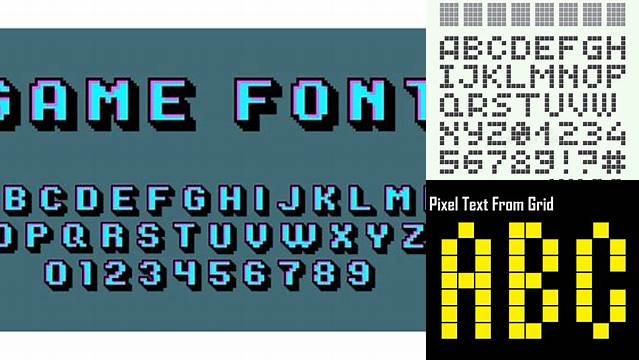
Free Pixel Grid Fonts: Download & Design Guide
Hey design enthusiasts! Are you on the hunt for that perfect pixel grid font to give your projects a seriously cool, retro vibe? You've landed in the right place! This article is your ultimate guide to snagging a pixel grid font free download and diving deep into the world of pixel fonts. We'll explore what makes these fonts so special, where to find them, how to use them, and even throw in some design tips to help you create awesome pixel art and retro-style graphics. So, buckle up, because we're about to pixelate your design world!
What's the Buzz About Pixel Grid Fonts?
Okay, let's get down to brass tacks. What exactly is a pixel grid font, and why are they so darn popular? Basically, a pixel grid font is a typeface where each letter, number, and symbol is constructed from individual pixels. Think of it like building letters out of tiny squares. This gives them a distinct, blocky appearance that's reminiscent of old-school video games, early computer graphics, and classic digital displays. They're all about that nostalgic charm, that feeling of stepping back in time to the golden age of 8-bit and 16-bit gaming.
Pixel fonts are more than just a design trend; they're a celebration of a specific aesthetic. They evoke a sense of simplicity, precision, and a certain raw digital beauty. They are perfect for a wide range of design projects where you want to add a touch of retro, vintage, or even futuristic flair. These fonts are also super versatile! You can use them in a variety of creative projects. Consider things like game interfaces, website headings, logos, posters, social media graphics, and even printed materials. The possibilities are practically endless.
One of the coolest things about pixel grid fonts is their inherent legibility. Because each character is built on a clear, defined grid, they tend to be very easy to read, even at small sizes. This makes them a great choice for user interfaces, where clear communication is key. Moreover, pixel fonts are highly customizable. You can easily manipulate their size, color, and even the individual pixels to achieve a unique look. This level of flexibility makes them a favorite among designers who want to create something truly unique. If you're a game developer, a graphic designer, or just someone who loves the retro aesthetic, then pixel fonts are a must-have tool in your design arsenal. They can instantly transform your projects, adding a touch of nostalgia and personality that's hard to beat.
Pixel Perfect: Why Pixel Fonts Are Still Relevant
In a world dominated by high-resolution displays and ultra-realistic graphics, you might be wondering why pixel fonts are still so relevant. The answer, my friends, lies in their unique aesthetic appeal and their ability to tap into our collective nostalgia. Pixel fonts are a reminder of a simpler time, when technology was less advanced but no less captivating. They're a visual shorthand for retro gaming, early internet culture, and the pioneering spirit of the digital age. This nostalgic appeal is a powerful force in design. It allows designers to connect with audiences on an emotional level, triggering memories and creating a sense of familiarity.
But pixel fonts aren't just about nostalgia; they also offer practical advantages. Because they're built on a grid, they are incredibly versatile and adaptable. They can be scaled up or down without losing their crispness, making them perfect for a variety of applications. Also, pixel fonts are incredibly easy to manipulate and customize. You can change the color of individual pixels, add effects, and even create custom characters, giving you a high level of control over your design. For developers, this translates to faster loading times, and reduced bandwidth usage, since pixel fonts usually have smaller file sizes compared to complex fonts.
Ultimately, pixel fonts continue to be relevant because they offer a unique combination of aesthetic appeal, practicality, and adaptability. Whether you're designing a game, a website, or a logo, a pixel font can add a touch of retro charm and personality that sets your work apart.
Alright, let's get to the good stuff: where to find that pixel grid font free download that you've been craving! There are tons of fantastic resources out there, offering a wide selection of pixel fonts. Let's dive into some of the best places to start your search.
One of the first places you should check is the ever-reliable Google Fonts. While Google Fonts might be known for its extensive collection of general-purpose fonts, it does have some pixel fonts that you can download and use for free. Google Fonts is a great starting point, because it's easy to use, well-organized, and the fonts are guaranteed to be high-quality and web-ready.
Next up, are the font websites like DaFont and Font Squirrel. These websites are massive repositories of fonts, including a great selection of pixel fonts. They're known for their user-friendly interfaces and extensive search filters. You can easily browse by style, theme, and even character set. However, always pay attention to the licensing terms before you download. Some fonts are free for personal use only, while others are free for both personal and commercial use.
Don't forget about dedicated font foundries and design communities like Behance and Dribbble. These platforms are amazing for discovering unique and high-quality fonts created by talented designers from around the world. Often, designers will offer free downloads of their fonts, or have links to where you can purchase them. Keep an eye out for special deals and promotions! Another place that is great to start searching is GitHub. You'll find several open-source pixel fonts available for download, perfect if you're into coding and want to delve a bit deeper. And lastly, check out individual designers' websites. Many font designers have their own websites or online shops where they offer free font downloads, usually in exchange for your email address or social media follow. Always remember to read the license agreement before using a font, and if you're using it for commercial purposes, make sure it's allowed.
Now it's time to put your knowledge into action! Go out there and explore the various resources for pixel grid font free download, download some fonts, and start creating! Remember to always read the license agreements and practice safe downloading habits. Embrace the pixelated aesthetic and let your creativity shine. With the right pixel font and a little imagination, you can transform your designs and transport your audience back to the golden age of digital design. Happy designing! And, don't forget to share your awesome pixel art creations with the world!